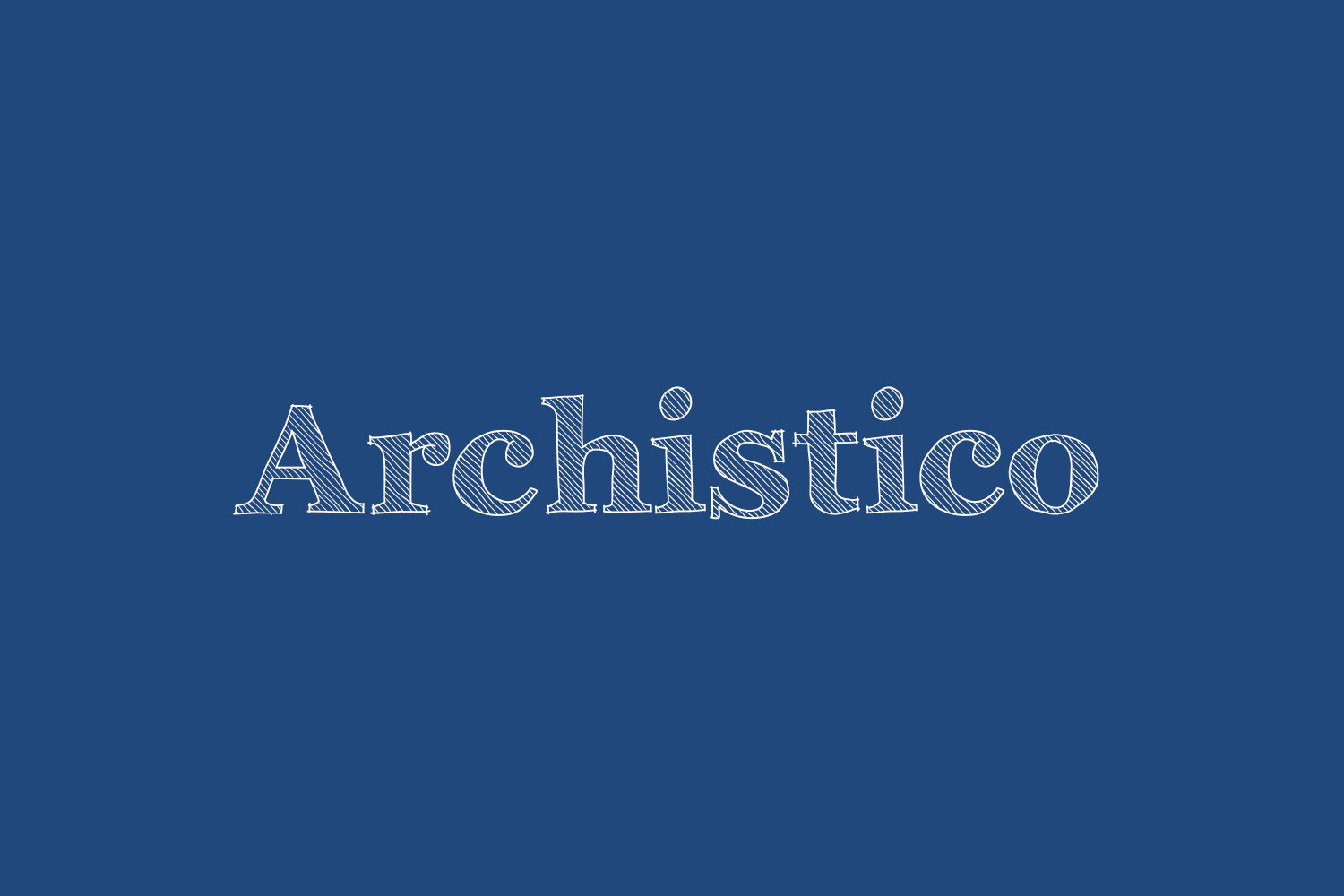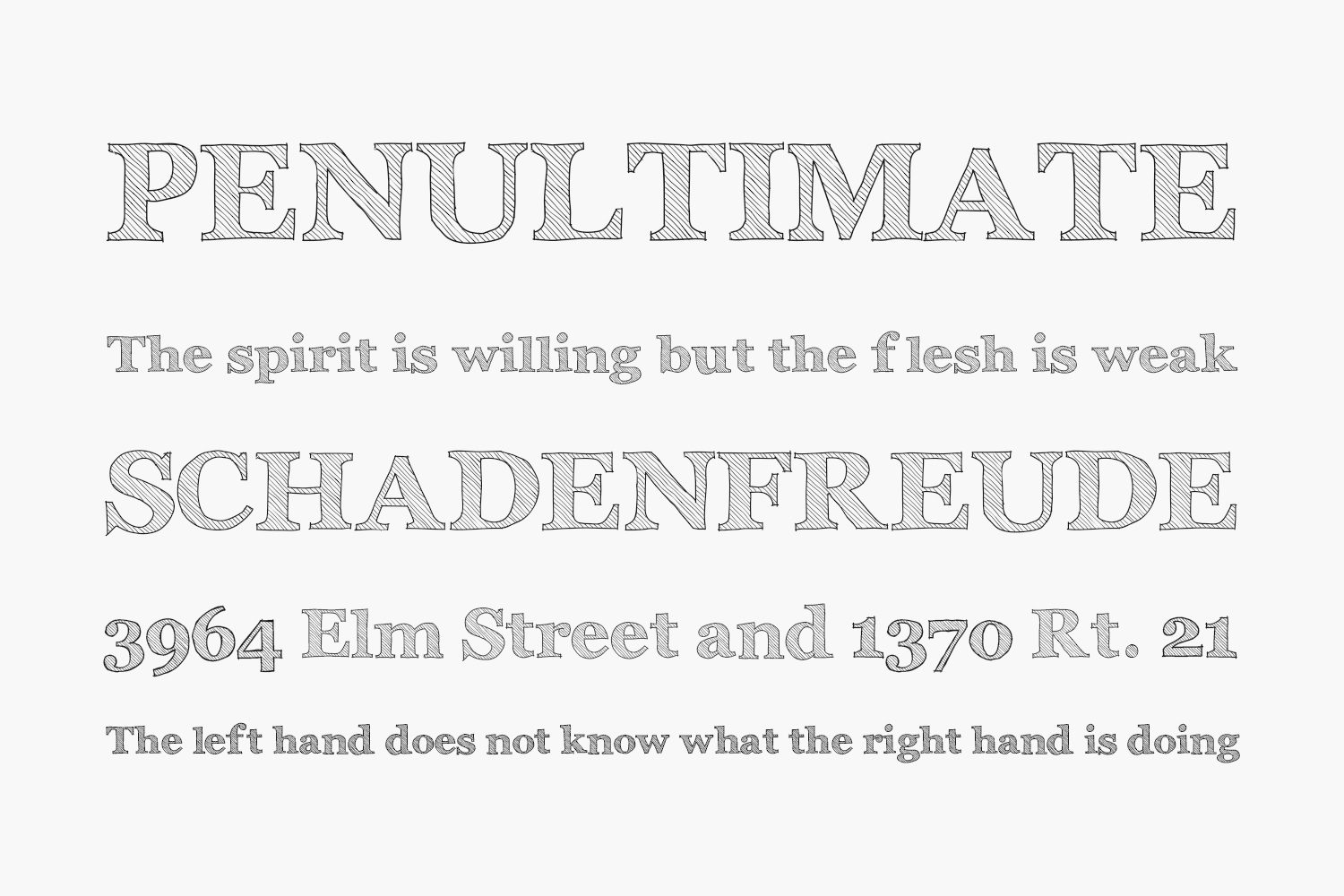
Here is my new font. It took me quite a lot of time to draw it but I was inspired a bit from Clarendon Serif. However I wanted to give the impression of a character made by hand. Archistico is the first version of the font, normal, to which I will follow bold with the thick border and maybe a little ‘smudged and, if I’ll still want a version with double lining to give more impact. This font family is free for both personal and commercial purposes.
Archistico Normal The quick brown fox jumps over the lazy dog
Archistico Bold The quick brown fox jumps over the lazy dog